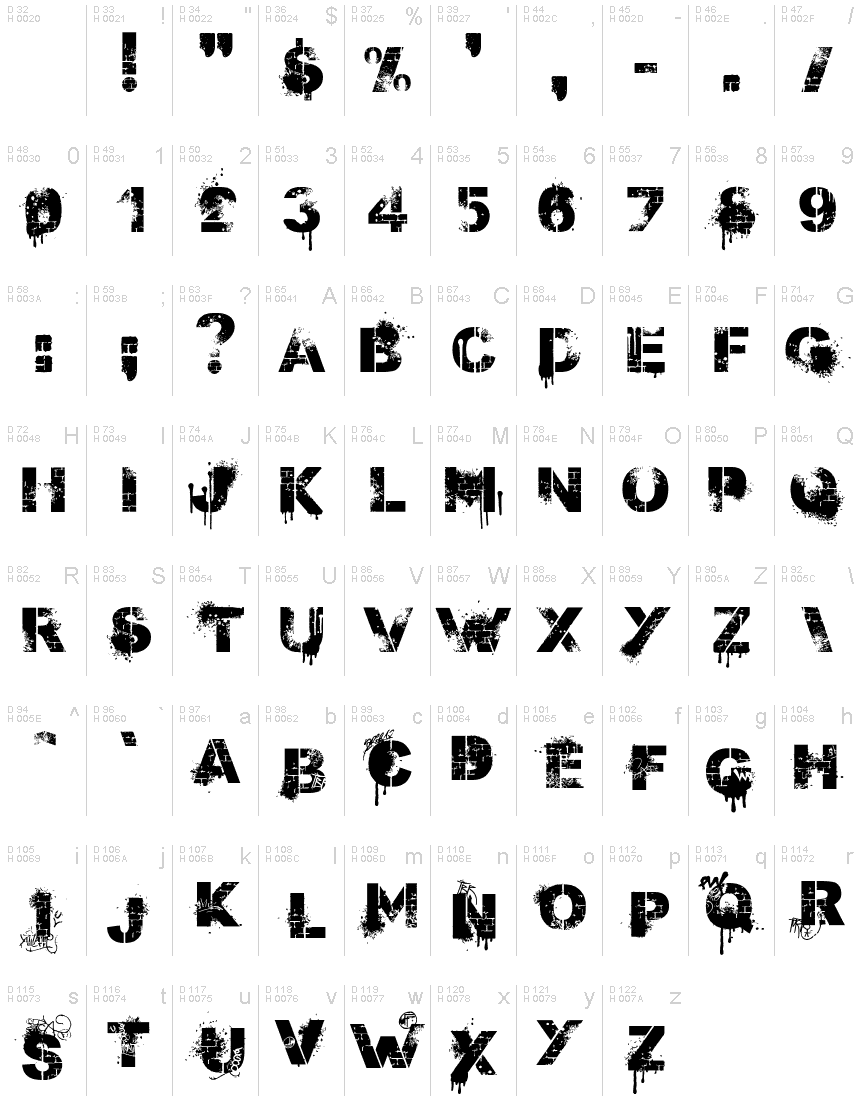
Stenstreet
Stenstreet, a creation by Imagex, stands out as a bold display font that embraces the rawness of urban artistry. Its eroded style exudes a sense of ruggedness and authenticity, reminiscent of the weathered facades along bustling city streets. With its distinctive texture and strong visual impact, Stenstreet carries an aesthetic that demands attention.
The font's bold weight enhances its legibility while maintaining an edgy look, making it an ideal choice for projects that require a touch of grit. Whether it's for eye-catching headlines, impactful posters, or dynamic branding materials, Stenstreet is tailored to inject character into any design.
Embrace the unique charm of Stenstreet to convey stories with texture and depth that resonate with a contemporary audience seeking something beyond the conventional.